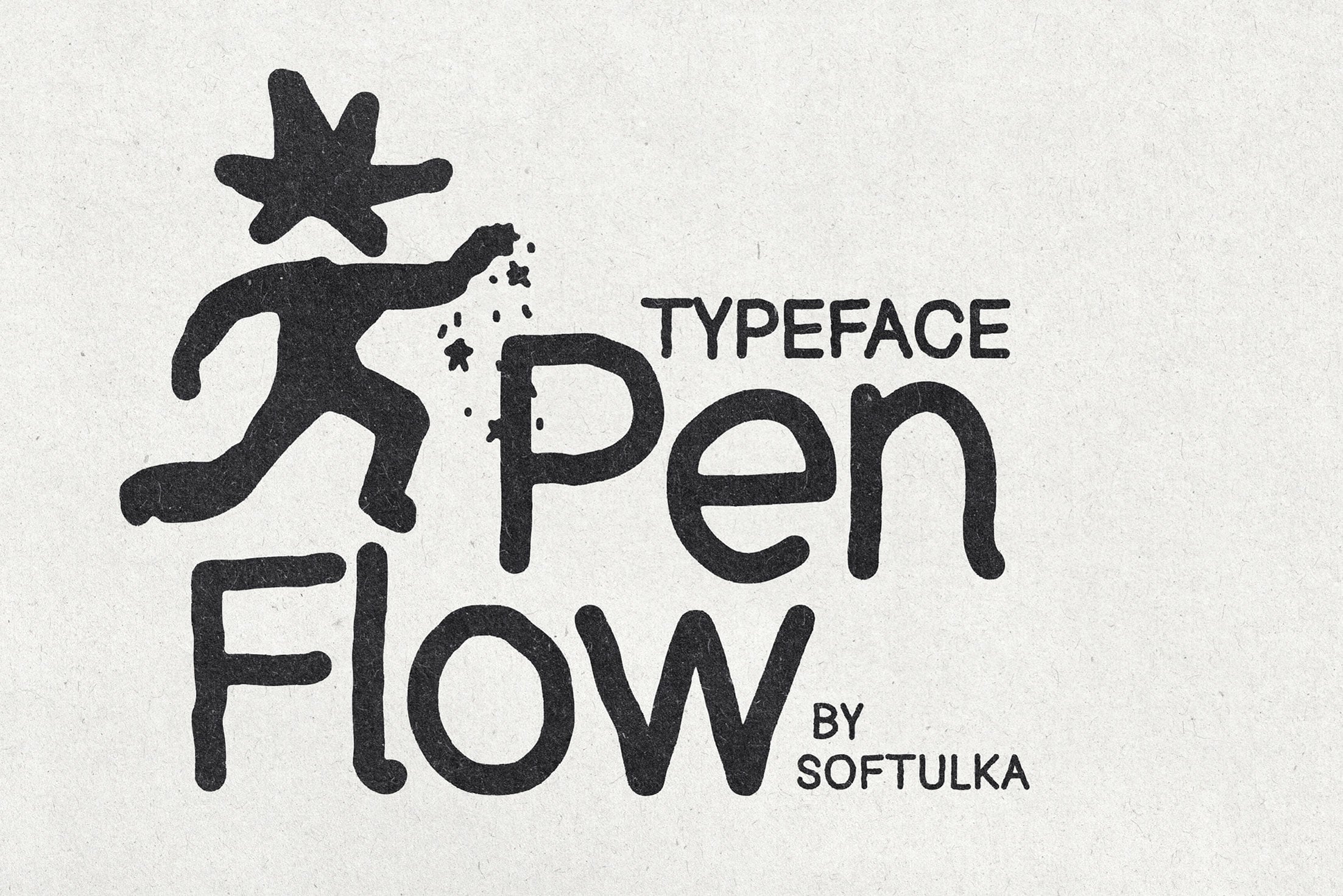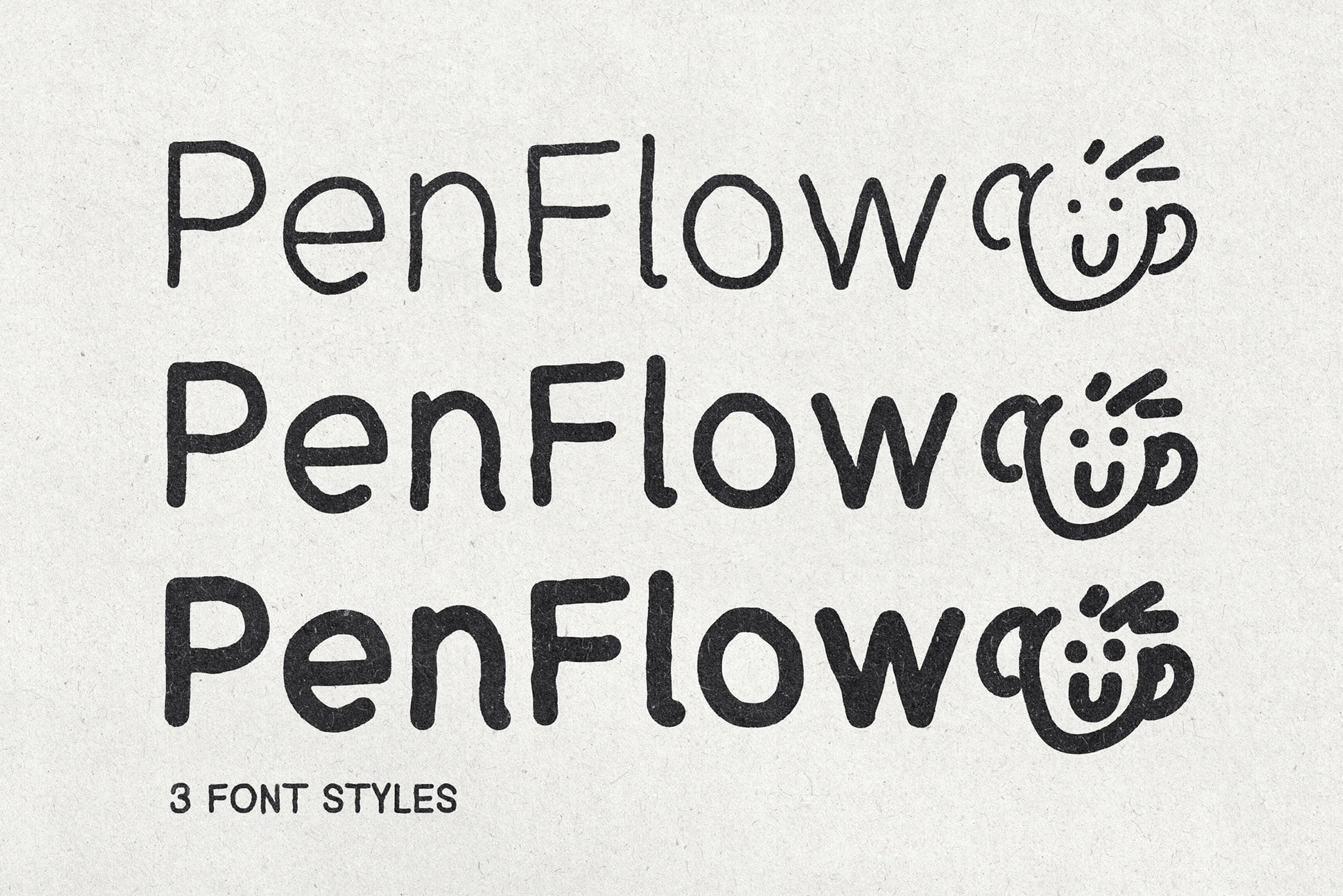
Inspired by retro cartoons, gooey textures, and bubblegum pop aesthetics, PenFlow is a bold yet soft handwritten typeface full of personality. It captures the..natural rhythm of writing with a ballpoint pen, combining smooth curves with organic, slightly distressed strokes for an authentic and expressive feel.
Balancing casual charm with subtle elegance, PenFlow works well across a variety of creative projects. Its textured appearance adds character without sacrificing readability, making it suitable for both playful and refined compositions.
The typeface includes three styles: Regular, Semibold, and Bold, allowing flexibility for different design needs while maintaining a consistent handwritten flow.
Ideal for branding, social media graphics, packaging, posters, quotes, and editorial layouts, PenFlow is designed for creators who want a relaxed, personal, and slightly edgy visual tone.